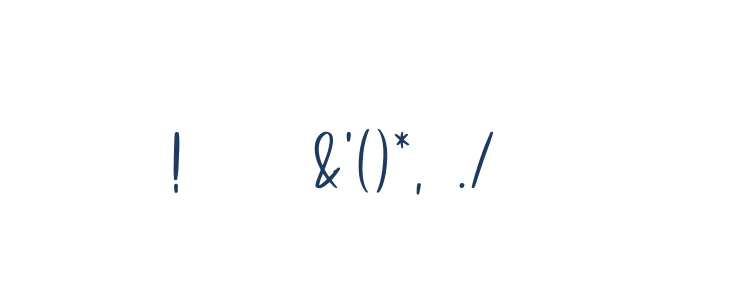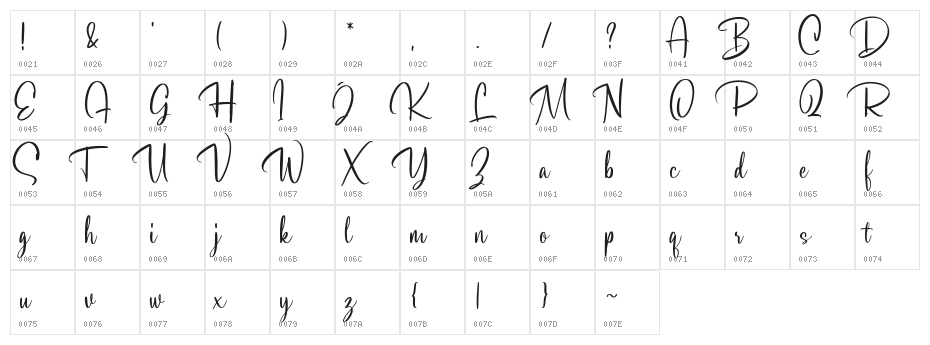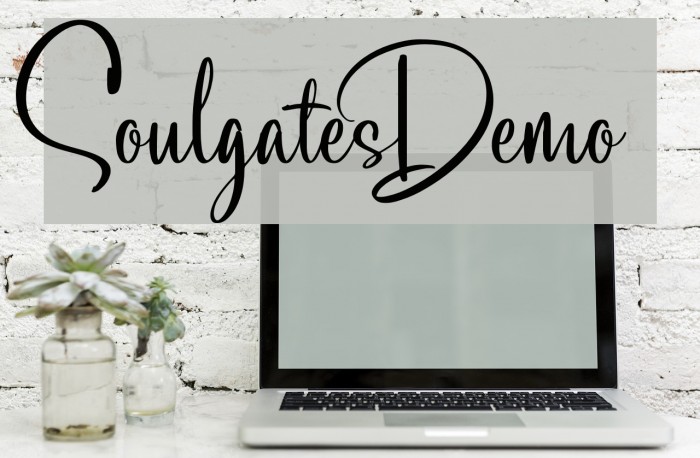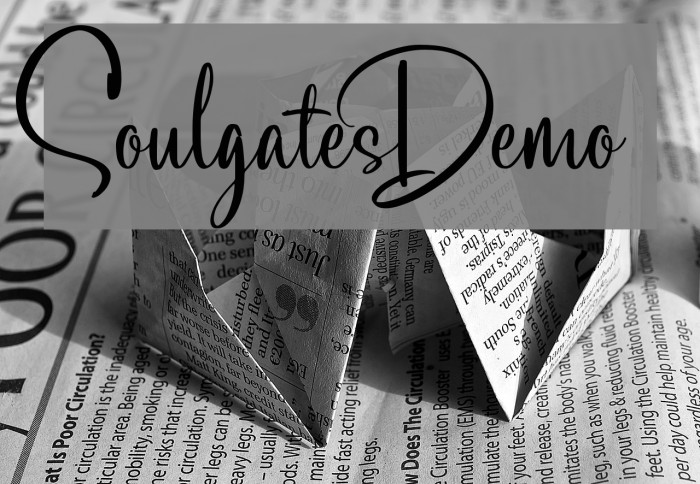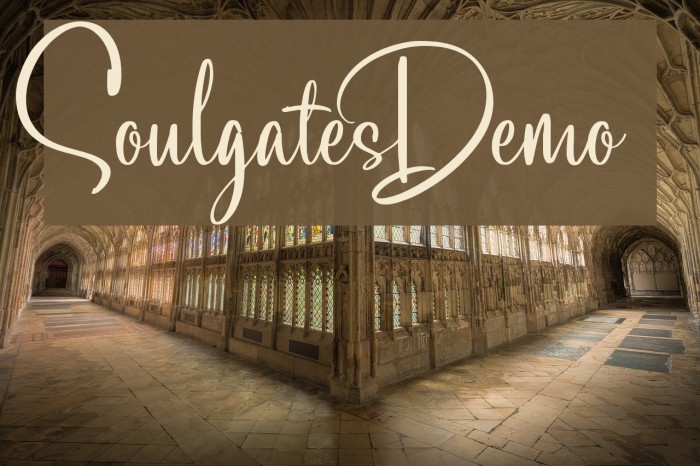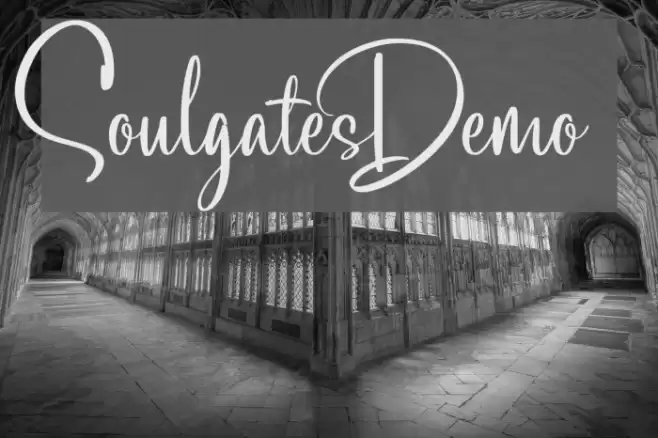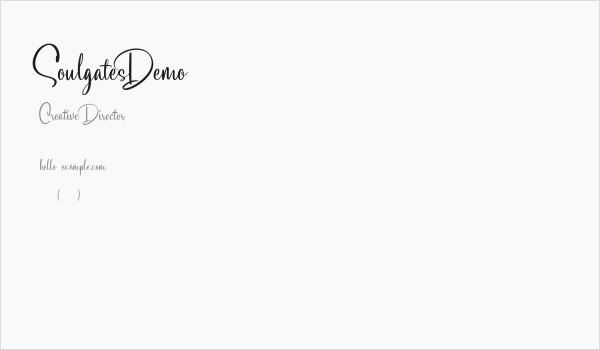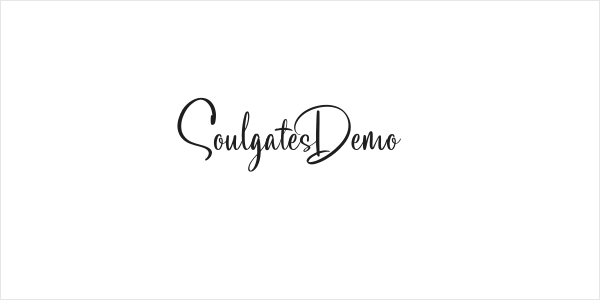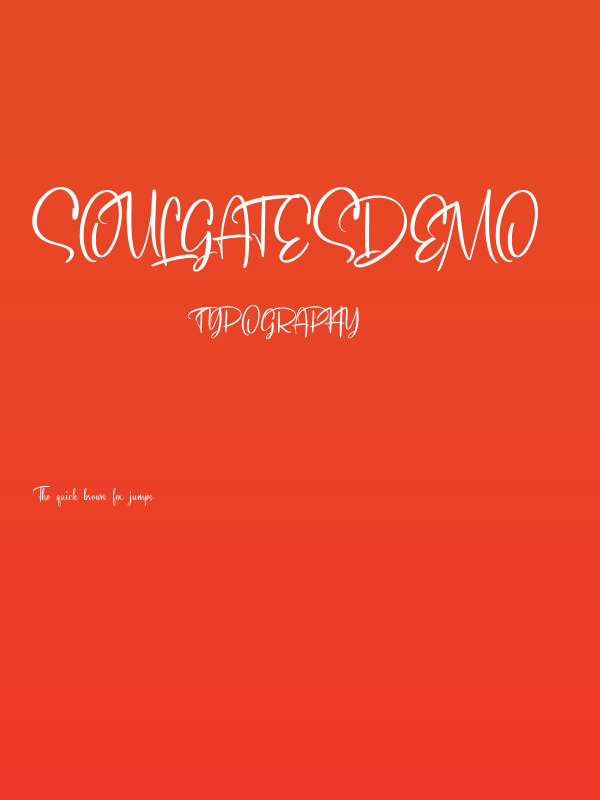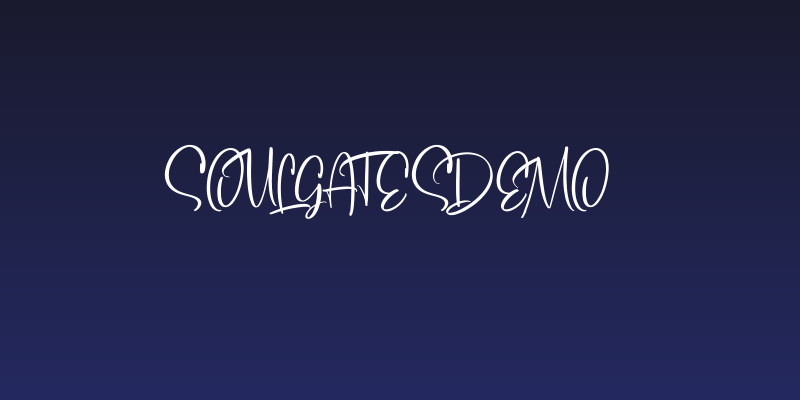
SoulgatesDemo Font
SoulgatesDemo Description
This font features an elegant and flowing script style, characterized by its smooth, cursive letterforms that exude a sense of sophistication and grace. The uppercase letters are particularly ornate, with intricate loops and swirls that add a decorative flair. The lowercase letters maintain a consistent flow, enhancing readability while retaining the font's artistic charm. The numerals and special characters are designed to complement the overall aesthetic, ensuring a cohesive look across all text elements. This font is ideal for projects that require a touch of elegance and creativity.
| Proposed Projects | Wedding invitations, greeting cards, branding materials, and elegant logo designs. |